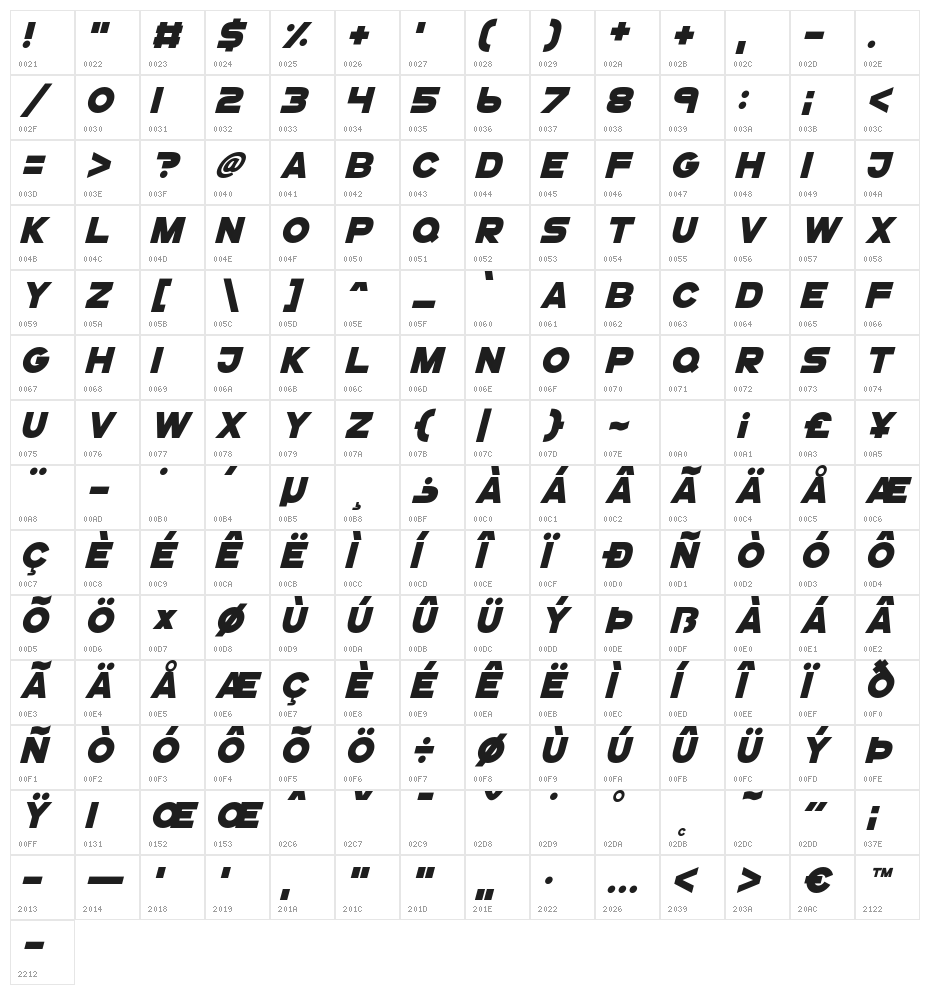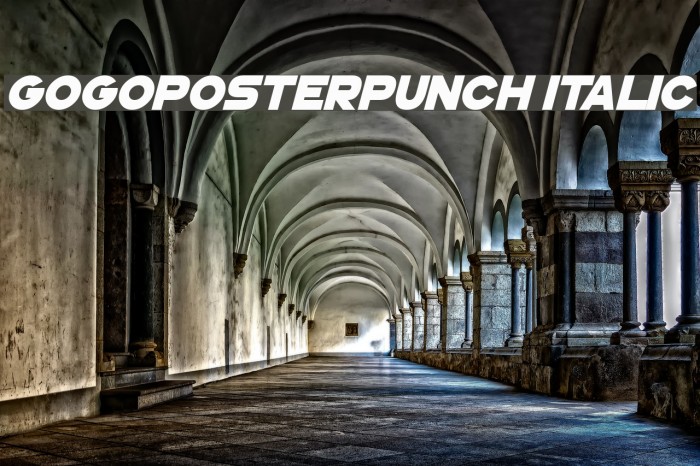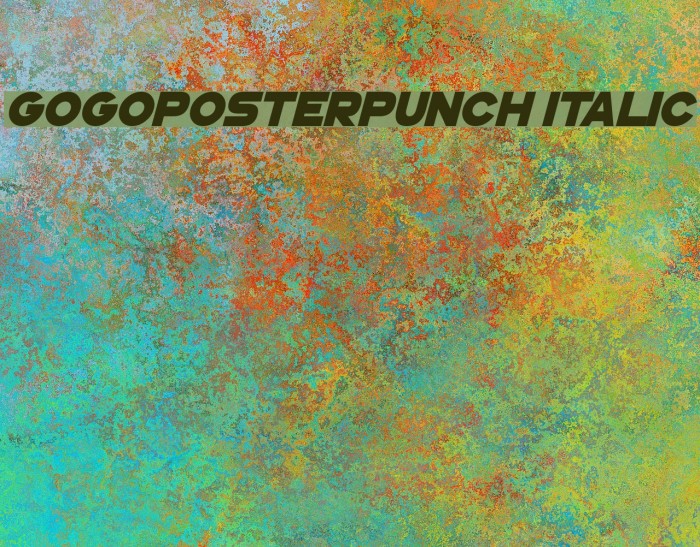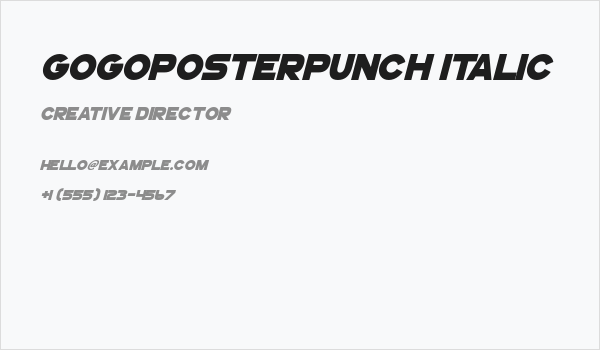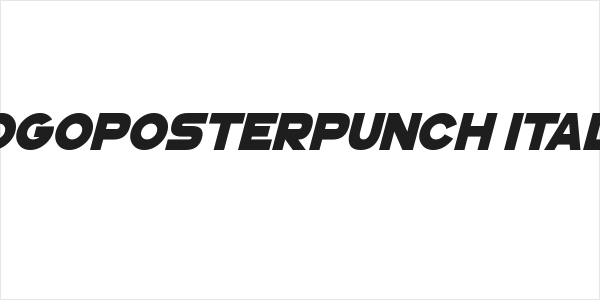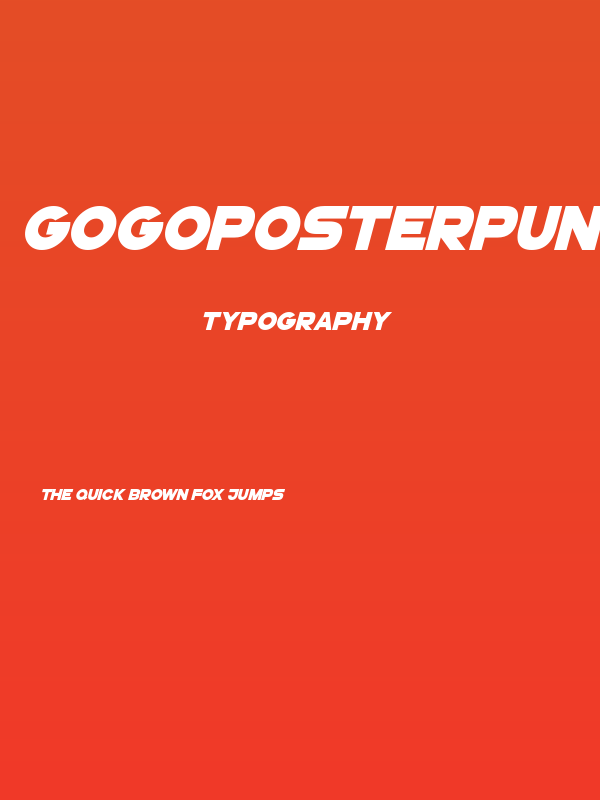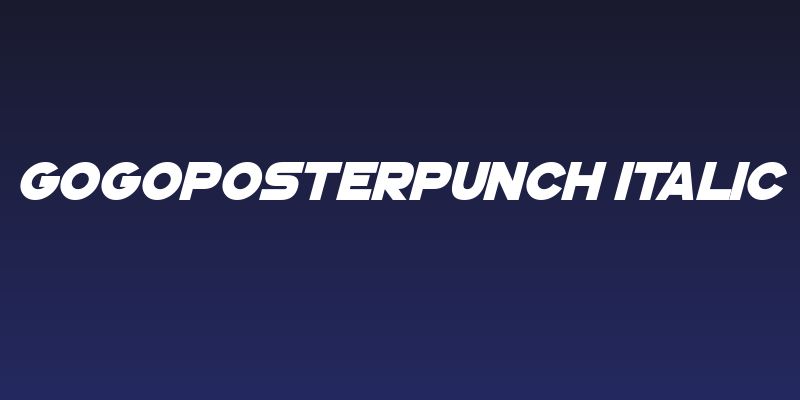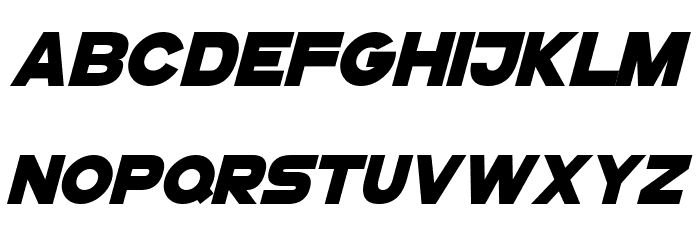
GoGoPosterPunch Italic Font
GoGoPosterPunch Italic Description
This font features a bold and dynamic italic style, characterized by its strong, angular lines and forward-leaning posture. The uppercase letters are particularly striking, with a consistent slant that conveys a sense of motion and urgency. The numerals and special characters maintain this energetic style, making them ideal for attention-grabbing designs. The font's bold weight and condensed width enhance its impact, while the medium contrast in stroke thickness adds to its readability. Overall, this font is perfect for projects that require a modern and assertive look.
| Proposed Projects | Ideal for posters, advertisements, sports branding, and any design needing a bold, modern impact. |